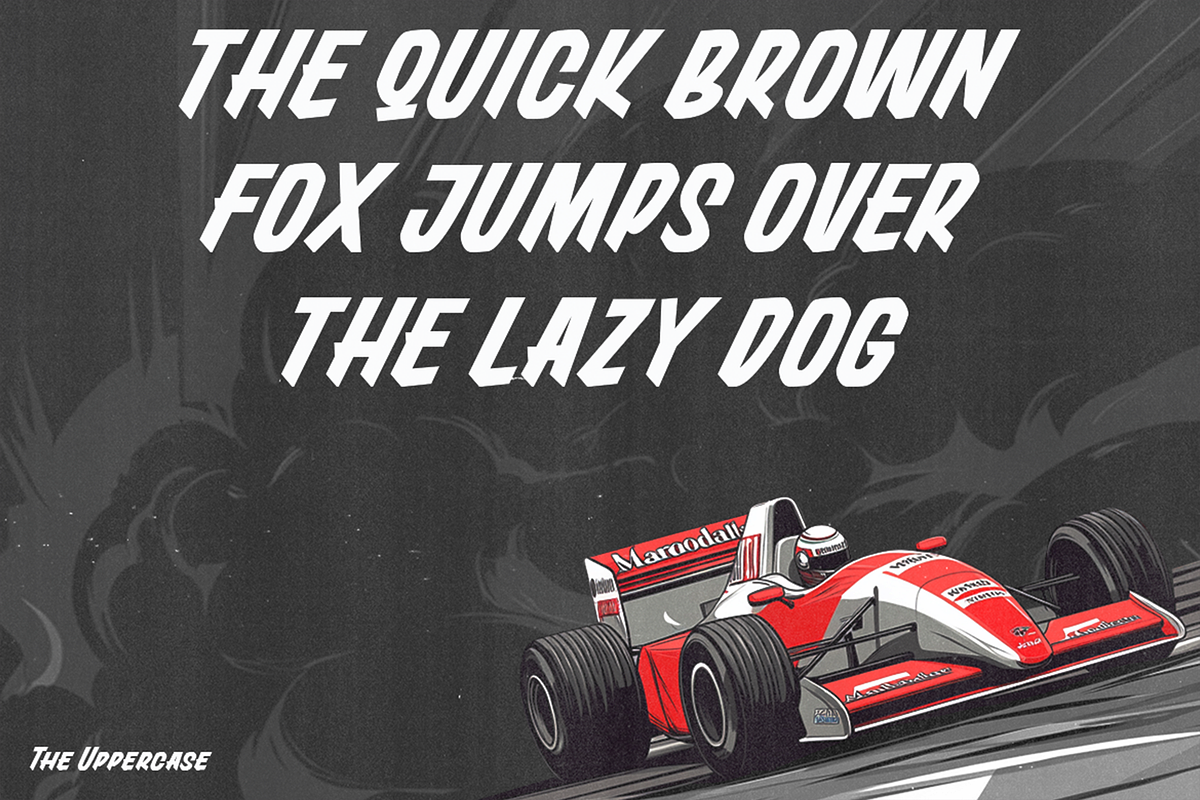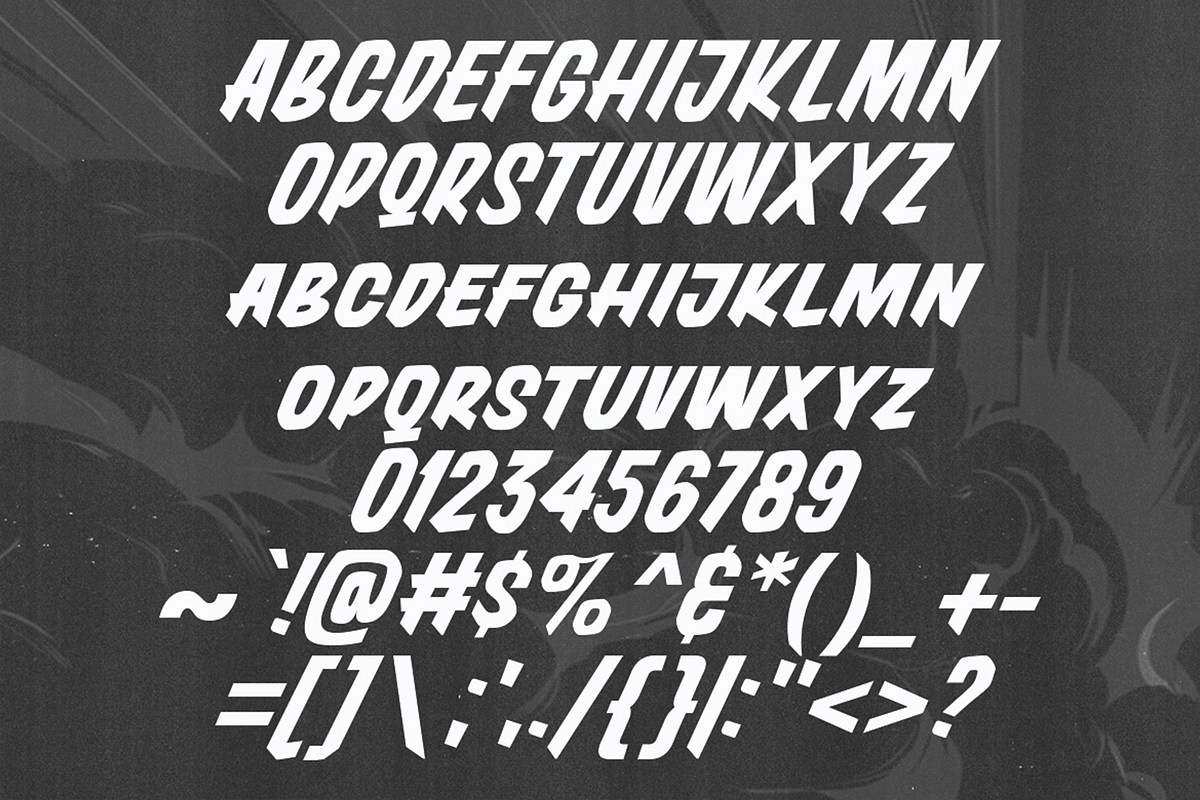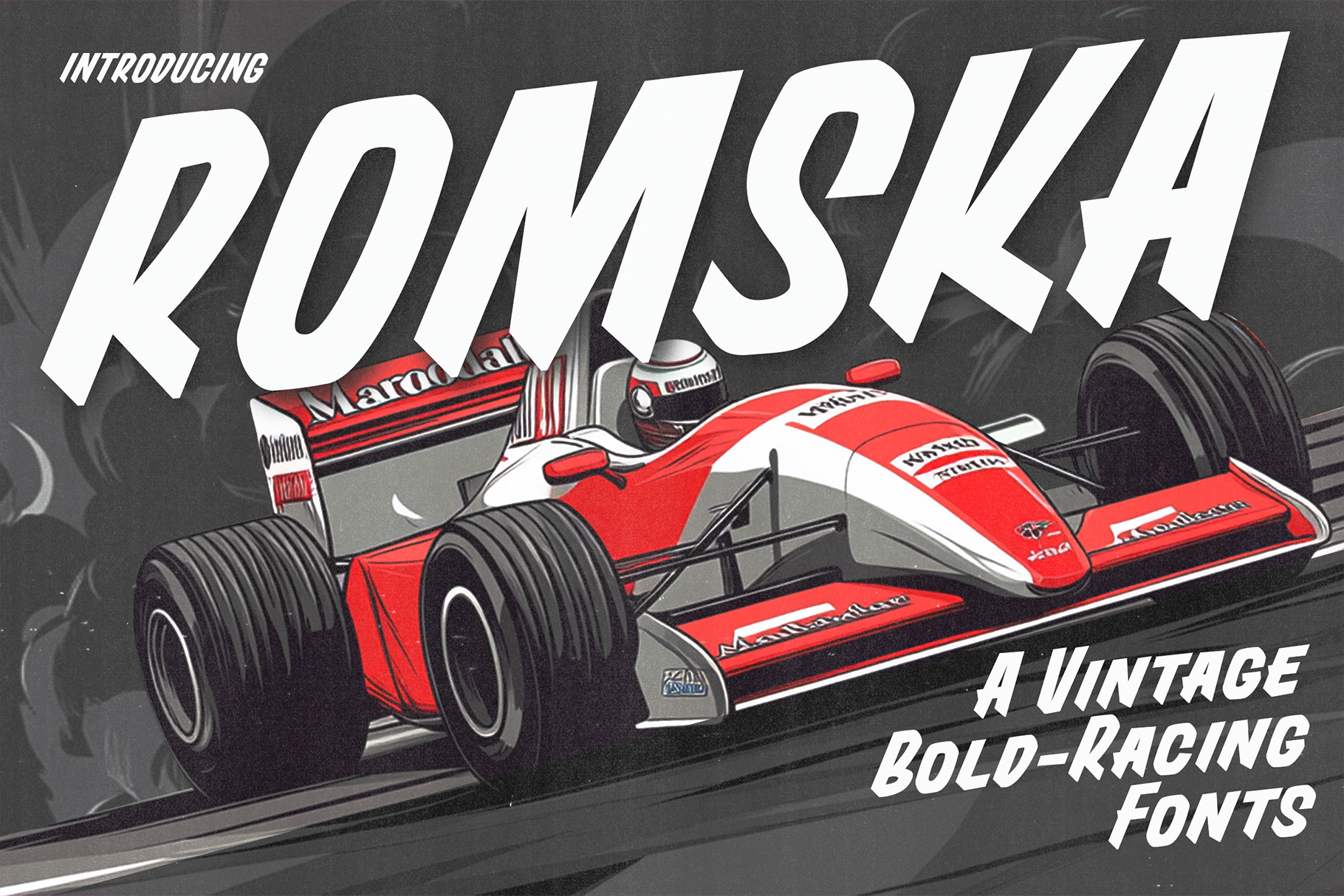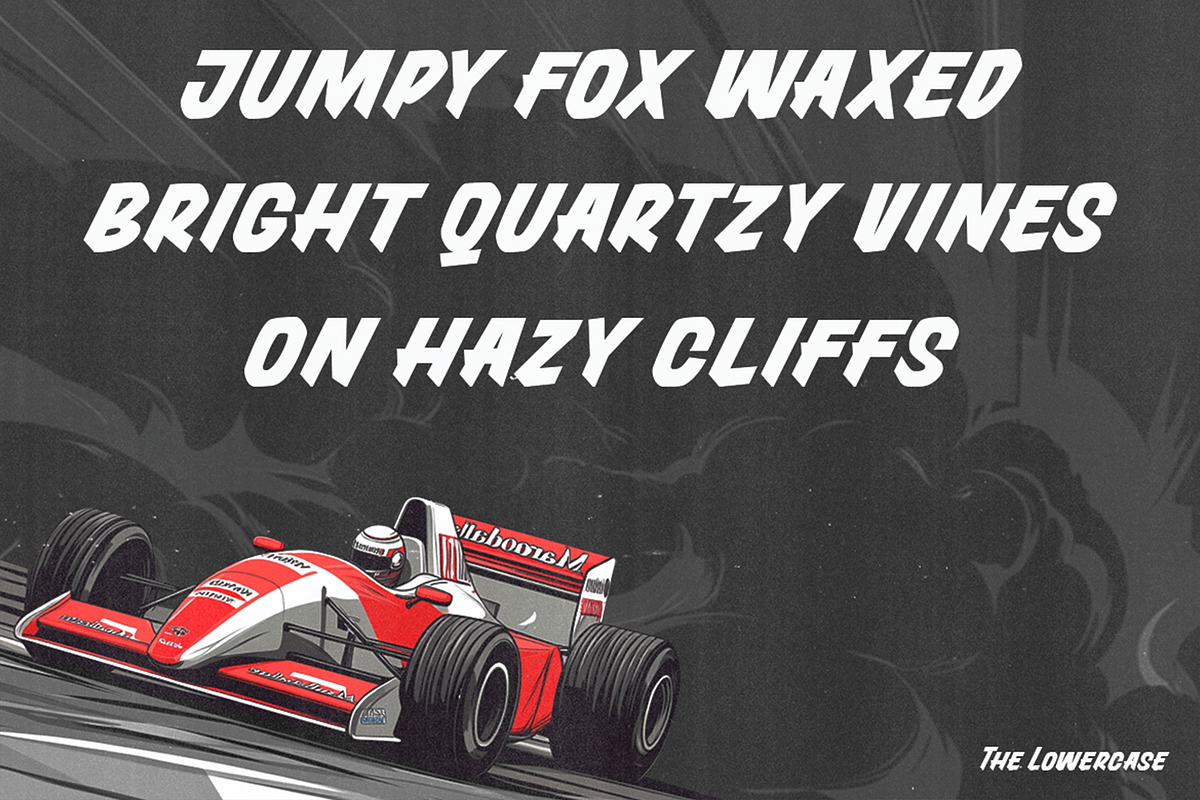
Romska - Vintage Bold Race Fonts
Introducing Romska: Bold Vintage Speed in Every Letter
Get your designs up to speed with Romska, the font that brings the thrill of 70s and 80s racing posters to life. This bold, italicized typeface is built to look fast, with sleek angles and the authentic flow of sign painting styles from the golden age of motorsports.
Whether you're designing for automotive events, vintage-inspired posters, or any project craving a classic racing vibe, Romska delivers that retro speed in every curve. From high-octane branding to racing-themed graphics, it's the perfect way to capture the thrill of the track in an instant.
Feel the rush—design with Romska.